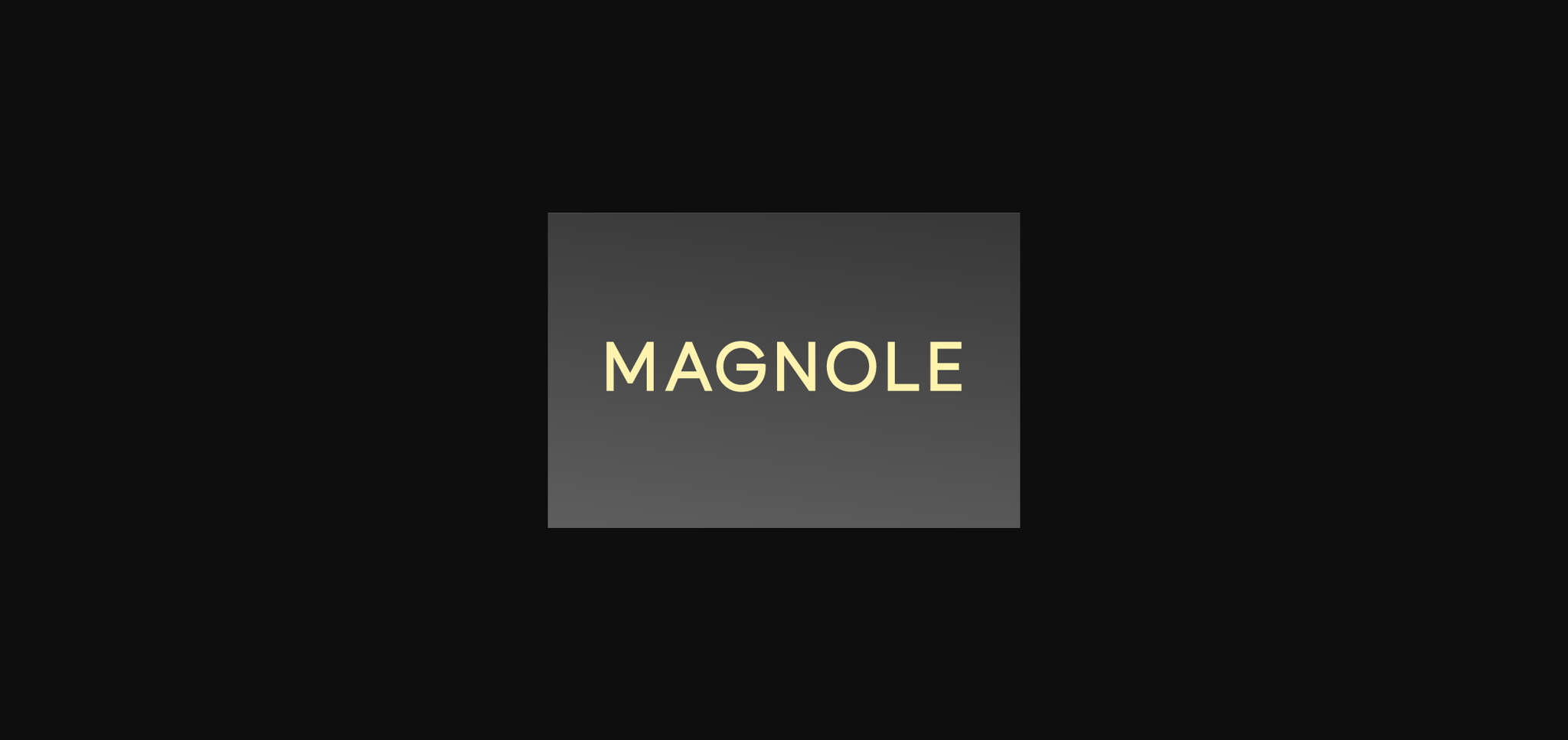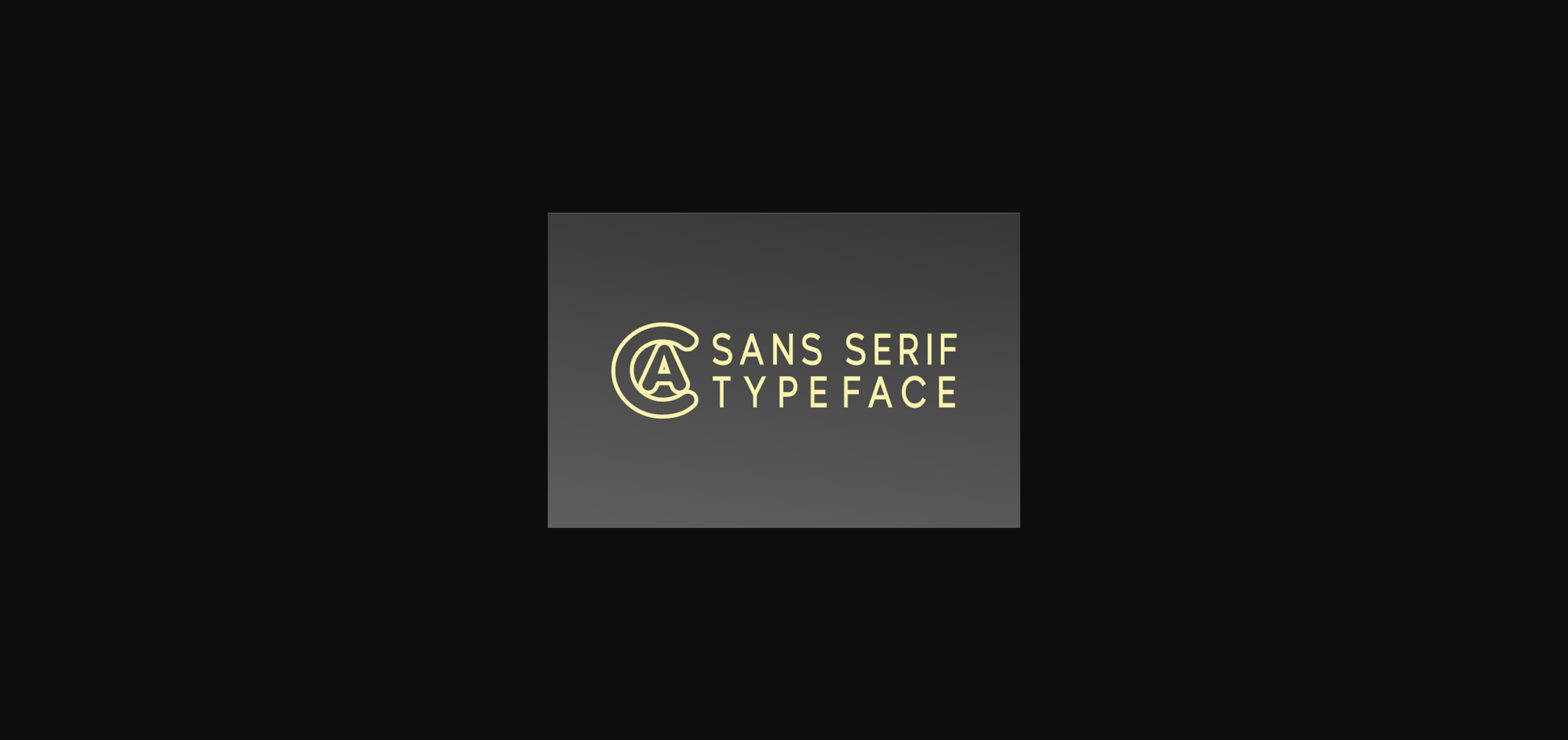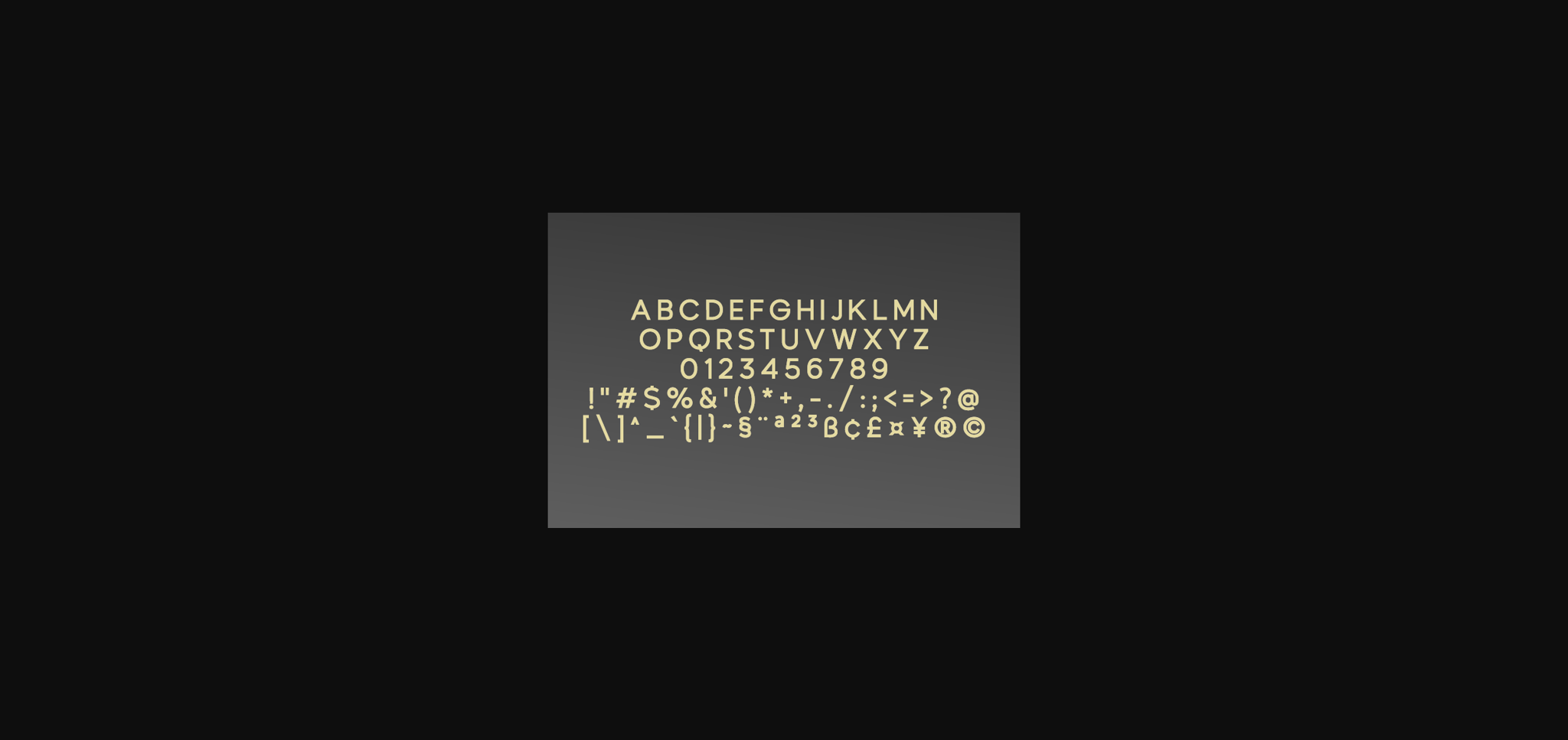
About Magnole Font
Magnole is a sans serif font that will give a real modern feel to any project.
Masterfully designed to become a true favorite, this font has the potential to bring each of your creative ideas to the highest level!